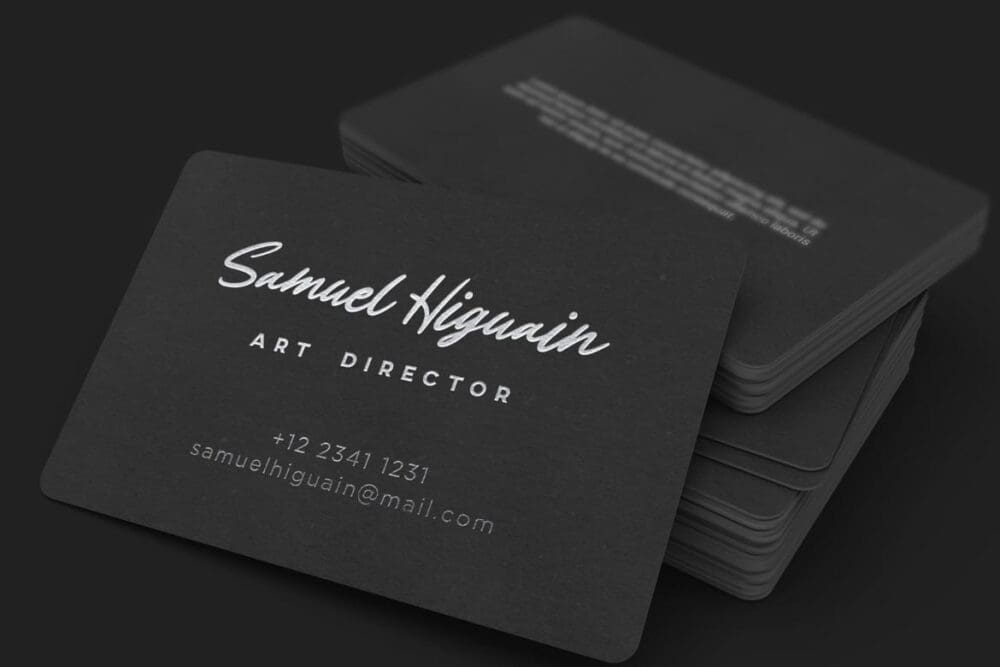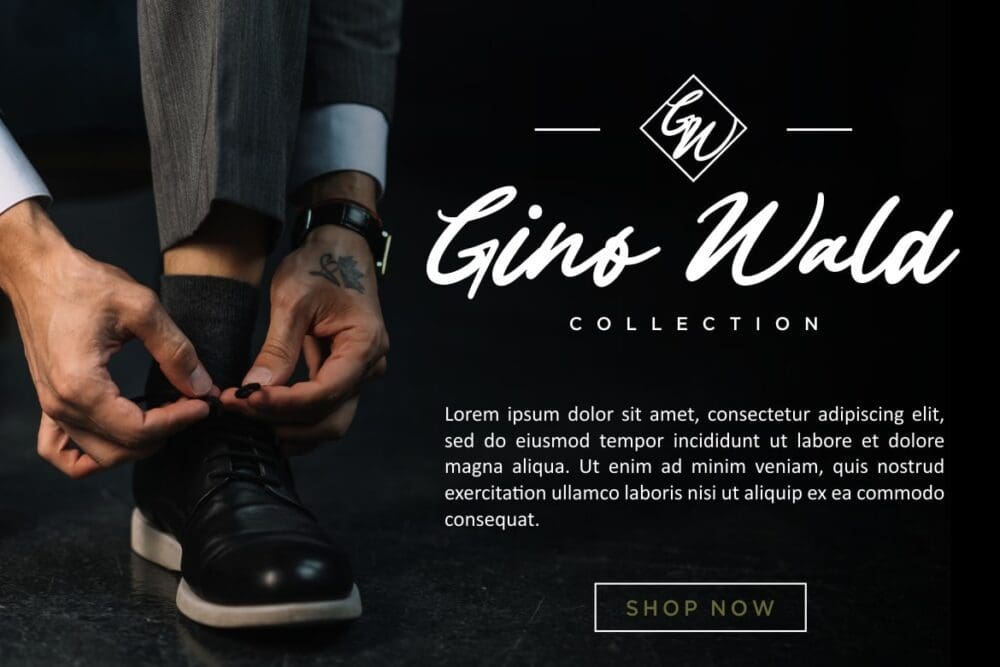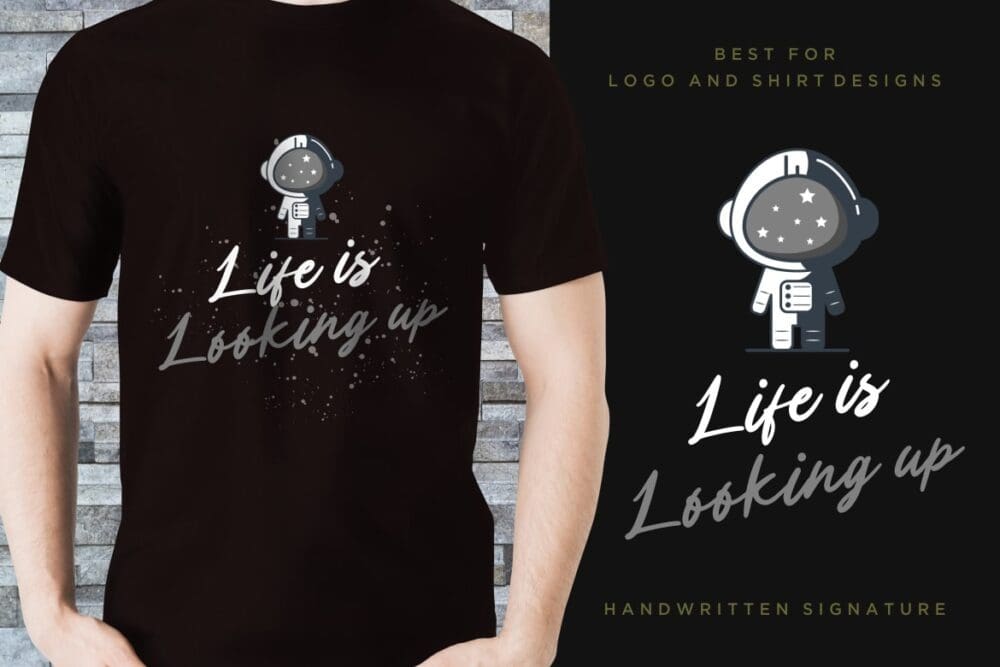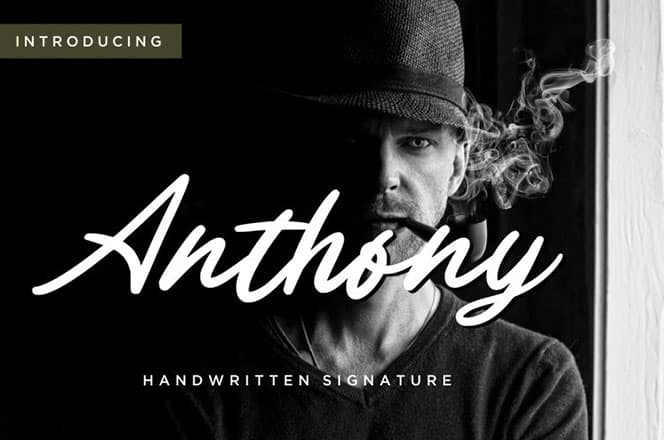
Anthony Handwritten Signature Font
Anthony Handwritten Signature Font that makes your latest project awesome. Anthony is perfect for branding projects, logos, social media posts, advertisements, invitations, stationery, and any projects that need handwriting taste.